The Y2K design era brought bold statement typography, futuristic elements, and bright colors that still influence graphic design today. Whether you’re working on a web design project, a book cover, or social media graphics, Y2K fonts capture the nostalgic yet modern aesthetic. Designers favor these fonts for their mix of geometric shapes, sharp angles, and expressive style.
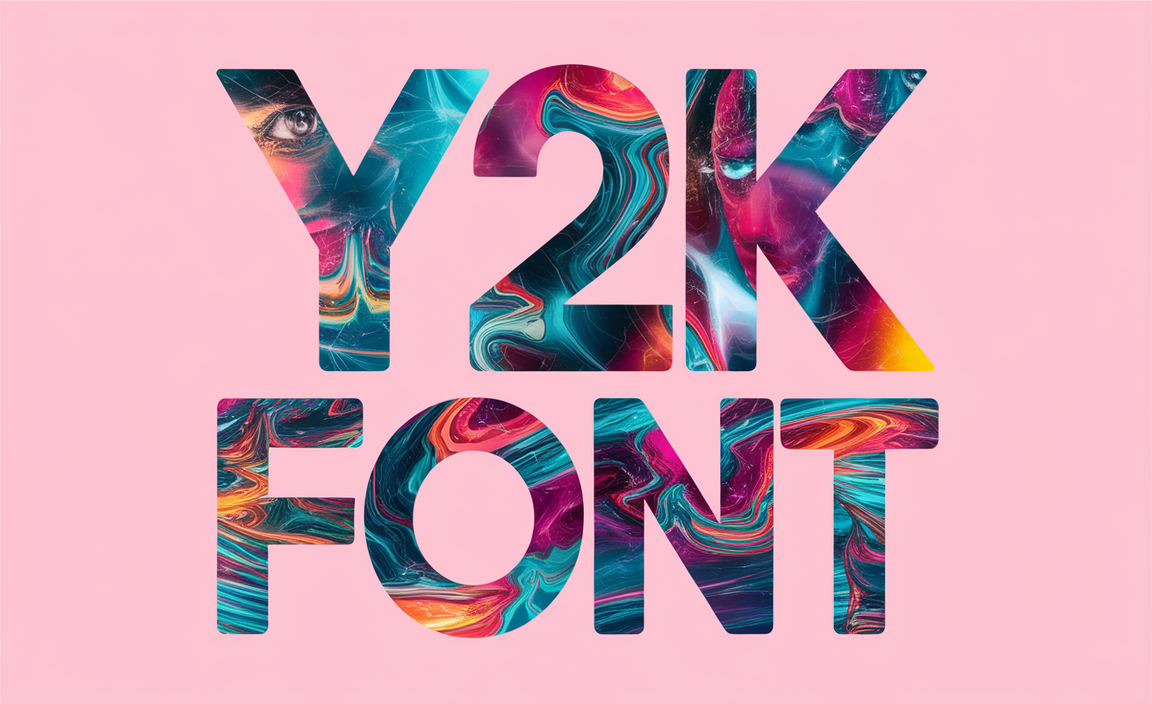
What Defines a Y2K Font?
Y2K fonts combine futuristic font elements with a retro vibe, often featuring bold strokes, decorative font details, and unconventional structures. They work well for typography in creative projects, from posters to album covers. The Y2K aesthetic embraces metallic effects, graffiti fonts, brush fonts, and display fonts that make a strong visual impact.
Top Y2K Fonts For A Bold Design
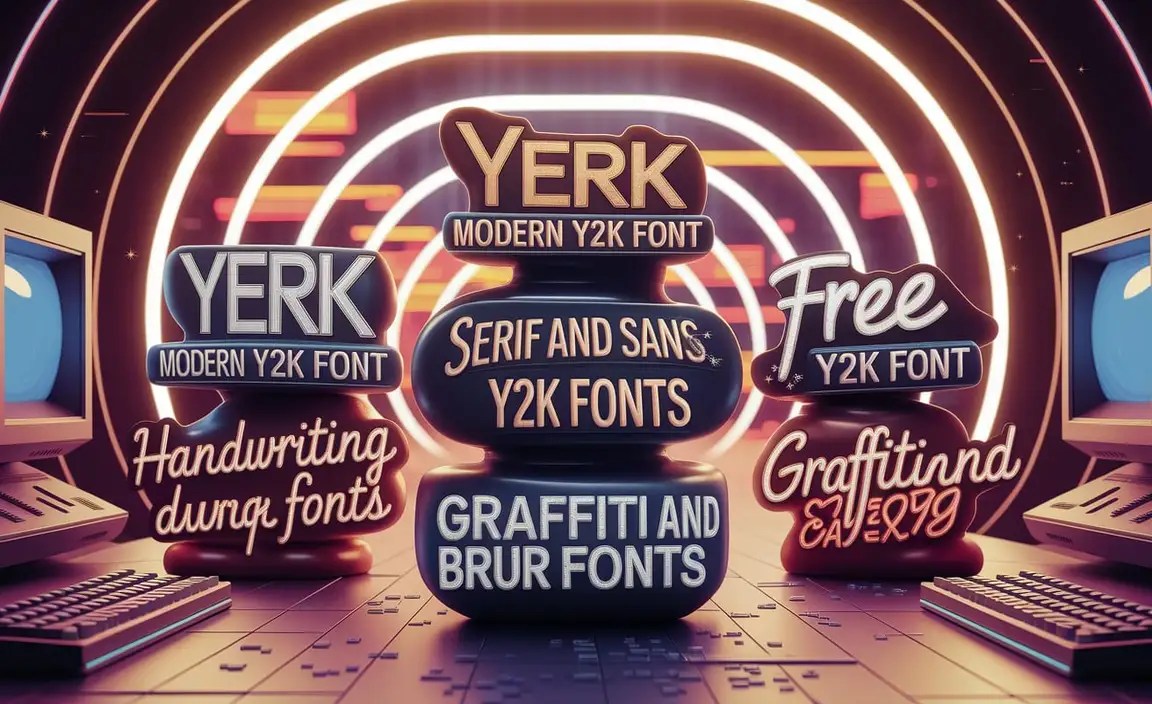
1. Yerk Modern Y2K Font
This typeface embodies the Y2K twist with its sharp angles and futuristic style. It’s perfect for logo design and typography that needs a bold statement.
2. Serif and Sans Serif Y2K Fonts
Both serif font and sans serif fonts work well in Y2K-inspired designs. Sans serif options bring a clean, digital feel, while serif fonts add a retro touch to book covers and branding projects.
3. Free Y2K Fonts for Budget-Friendly Design
For those looking for a free Y2K font, Envato Elements and other design platforms offer a variety of options. These fonts can elevate social media graphics and other digital projects without breaking the budget.
4. Handwriting and Script Fonts
Handwriting fonts and script font choices can bring a softer Y2K style to your design project. These fonts are great for album covers, branding, and typography that needs a personalized feel.
5. Graffiti and Brush Fonts
Graffiti fonts and brush fonts add an edgy, urban aesthetic to any Y2K design. They work well for display fonts on posters, streetwear branding, and creative projects that need a raw, expressive touch.
How to Use Y2K Fonts in Design Projects
- Logo Design – A Y2K-inspired font can make your brand stand out with bold typography and unique typeface choices.
- Web Design – Modern Y2K fonts enhance UX with vibrant, retro-futuristic appeal.
- Posters & Album Covers – Y2K fonts bring a mix of nostalgia and modern design elements.
- Social Media Graphics – Eye-catching, aesthetic fonts improve engagement.
- Book Covers – A Y2K style font can give your cover a unique and trendy vibe.
Final Thoughts
Y2K fonts capture the spirit of an era while fitting seamlessly into modern design trends. Whether you’re designing for web, print, or branding, these typefaces offer endless possibilities. From serif and sans serif options to graffiti and brush fonts, the Y2K style remains a favorite among designers looking for a retro-futuristic edge.
What Is The Best Y2K Font For A Futuristic Look?
A futuristic font like Yerk Modern Y2K Font or any geometric typeface with sharp angles is ideal.
Are Y2K Fonts Good For Logo Design?
Yes! A bold decorative font can make a strong impact in logo and branding projects.
What Colors Go Well With Y2K Fonts?
Bright colors, metallics, and neon shades enhance the Y2K aesthetic.
Can Y2K Fonts Be Used In Web Design?
Absolutely! Many Y2K-inspired fonts are web-friendly and work well in modern layouts.